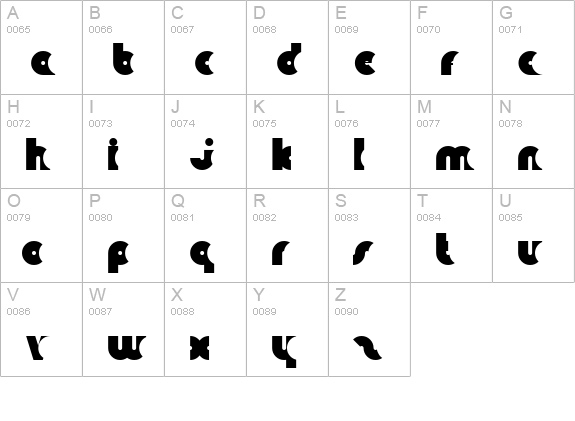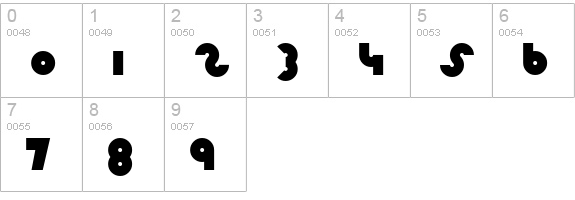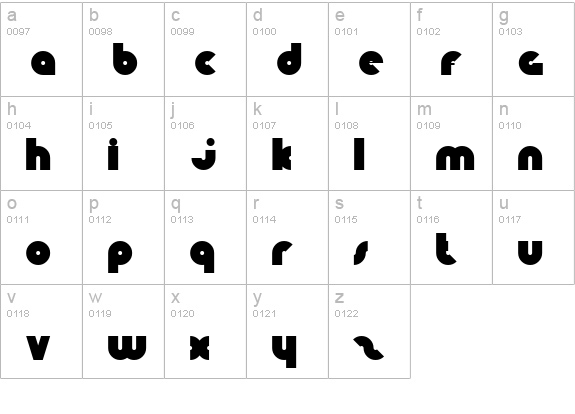
Knuckle Down font is a bold and eye-catching typeface that exudes strength and confidence. With its unique design and rugged appearance, this font is perfect for making a bold statement in your projects. Whether you're creating posters, logos, or headlines, Knuckle Down font will grab attention and leave a lasting impression. What's even better is that Knuckle Down font is completely free to download at FontsMarket.com. Yes, you read that right - you can get your hands on this striking font without spending a dime. So why wait? Add Knuckle Down font to your collection today and let your creativity run wild with this powerful and dynamic typeface.